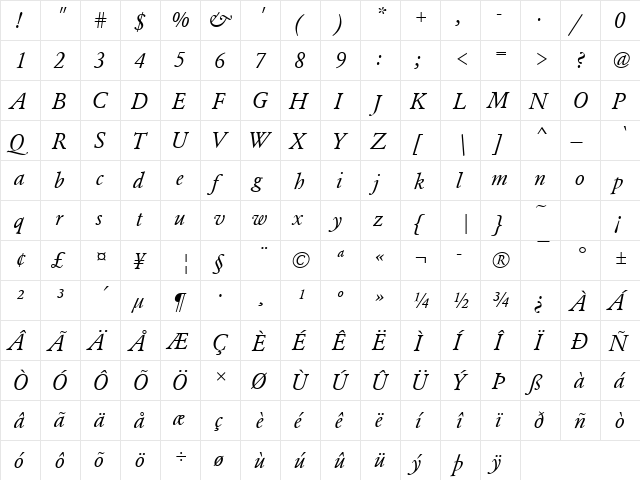
URWGaramondT Italic
Design Context for URWGaramondT Typeface
URWGaramondT takes a measured approach to typography — its balanced proportions and neutral character make it a reliable workhorse for both digital and print work. The slanted form adds forward momentum and visual energy.
Pro Tip: Try URWGaramondT for annotation and caption copy alongside an upright companion — the contrast in angle creates a dynamic but ordered typographic system.